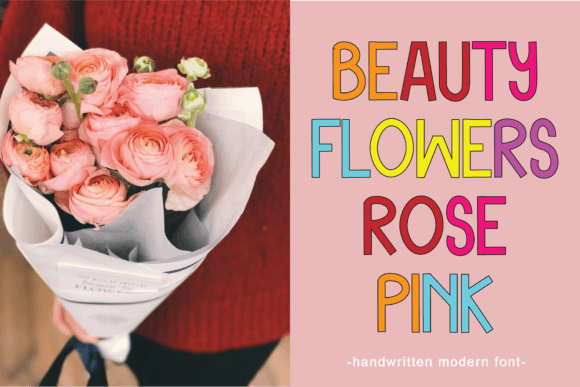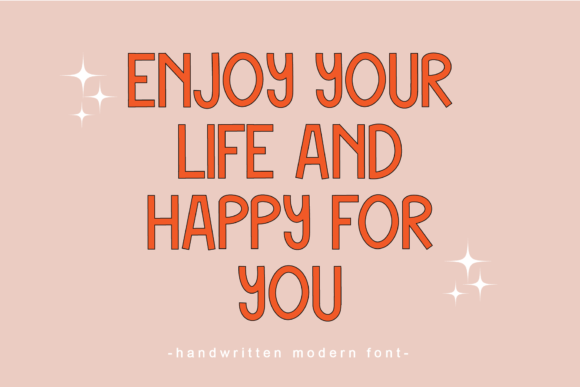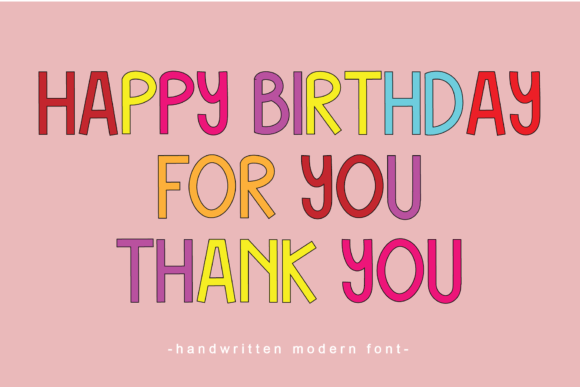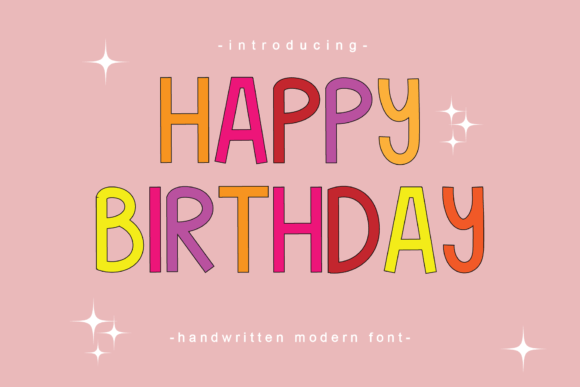
Happy Birthday Font: The Ultimate Celebration Companion
Welcome to Happy Birthday font, the epitome of joy and enchantment! This font exudes a mellow allure, effortlessly merging into various design environments. Its playful character turns it into a top option for children’s t-shirts, sprinkling a bit of magic into each child’s outfit. Picture Happy Birthday gracing your favorite pillows and coffee cups, sprinkling joy into every sip you savor. This font goes beyond sending a message – it’s a jubilant commemoration, turning every instance into a noteworthy celebration.
The Charm of Happy Birthday Font
The Happy Birthday font is more than just a typographic style; it’s an experience. Its unique blend of playfulness and elegance makes it perfect for a wide range of applications, from festive party invitations to delightful children’s apparel. The font’s design is carefully crafted to evoke a sense of happiness and celebration, making it an ideal choice for designers and crafters looking to add a touch of joy to their creations.
One of the standout features of the Happy Birthday font is its versatility. Whether you’re designing for digital platforms or crafting physical products, this font seamlessly integrates into various design environments. Its adaptability makes it a favorite among designers who need a font that can keep up with their creative demands. From whimsical wall art to cheerful stationery, Happy Birthday font brings a celebratory vibe to every project.
Perfect for Kids’ Designs
Children’s t-shirts are a popular application for the Happy Birthday font, and for good reason. Kids love bright, fun, and playful designs, and this font delivers just that. By incorporating Happy Birthday into your t-shirt designs, you can create eye-catching and delightful outfits that kids will adore. The font’s playful style is sure to make any child’s birthday a little more special.
Home Decor and Beyond
The Happy Birthday font isn’t limited to clothing and digital designs. Imagine it adorning your home decor items like pillows, coffee cups, and wall art. This font can turn everyday objects into celebratory pieces that bring joy to your daily life. Whether it’s a birthday party, a get-well wish, or just a Tuesday, Happy Birthday font can add a touch of festivity to any setting.
Why Choose Happy Birthday Font?
- Unique Style: The Happy Birthday font offers a unique and recognizable style that stands out in any design.
- Versatility: It can be used across various platforms and products, from digital graphics to physical merchandise.
- Playfulness: The font’s playful nature makes it perfect for designs aimed at children or for adding a fun twist to adult projects.
- Elegance: Despite its playful nature, the font maintains an air of elegance, making it suitable for more sophisticated designs.
Tips for Using Happy Birthday Font
- Mix and Match: Combine Happy Birthday font with other fonts to create a unique and layered look.
- Color Play: Experiment with different colors to enhance the font’s playful and celebratory feel.
- Context is Key: Tailor your design to the occasion. Happy Birthday font shines in celebratory contexts but might not be the best fit for more formal or somber designs.
Happy Birthday font is more than just a typographic choice; it’s a way to infuse joy and celebration into your designs. Its unique blend of playfulness and elegance, combined with its versatility, makes it an invaluable tool for designers and crafters. Whether you’re creating children’s apparel, home decor, or digital content, Happy Birthday font can help turn any project into a celebration. So, the next time you’re looking to add a touch of joy to your designs, consider the Happy Birthday font – it’s sure to make your creations a little more special.